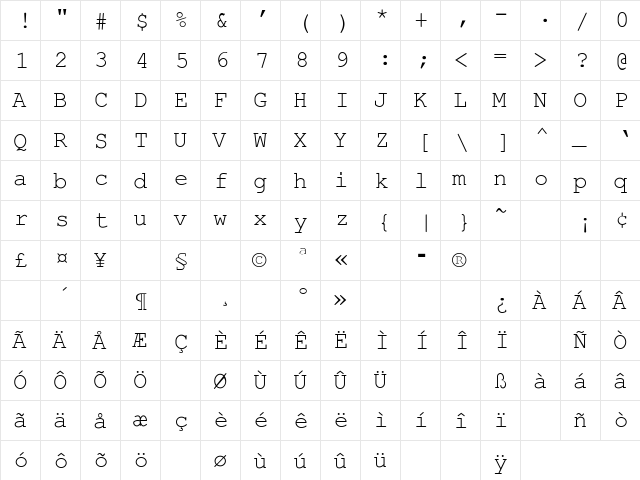
Beach Cliff Regular
Design Context for Beach Cliff Typeface
Beach Cliff offers clean, dependable letterforms without strong stylistic allegiance, making it a practical choice for designers who need flexibility.